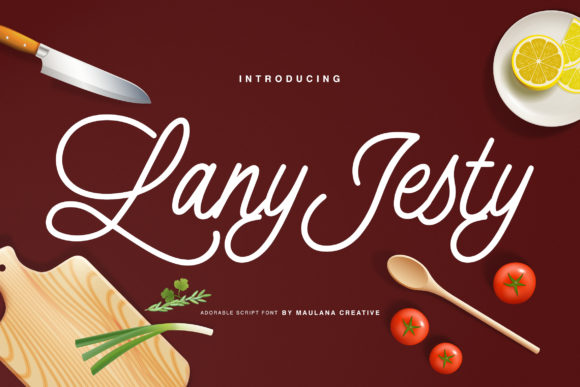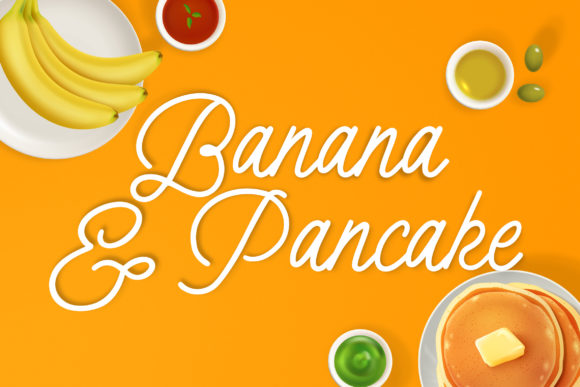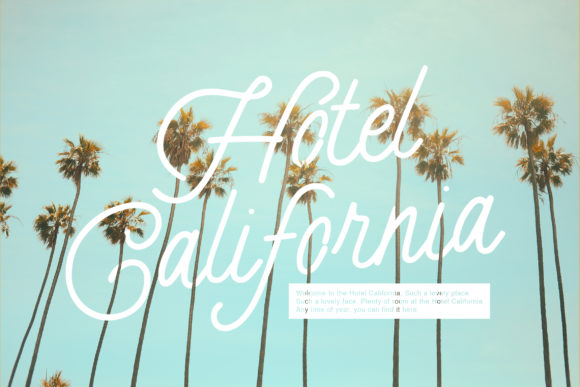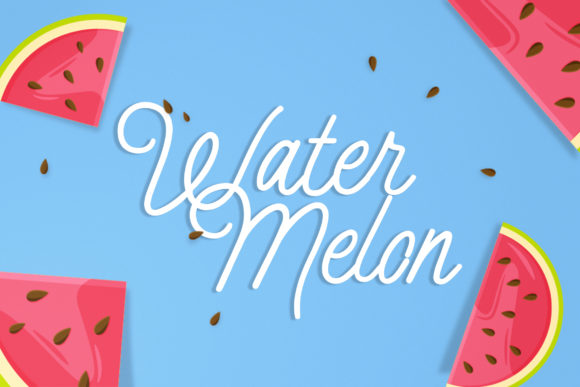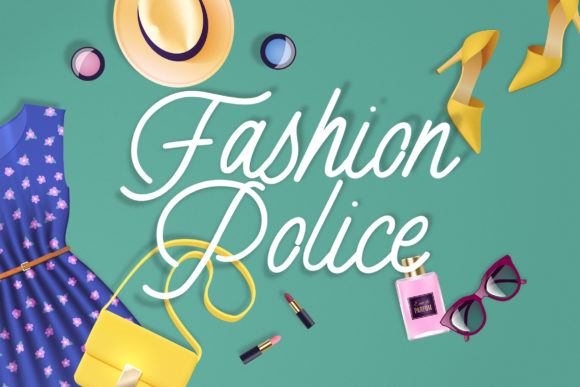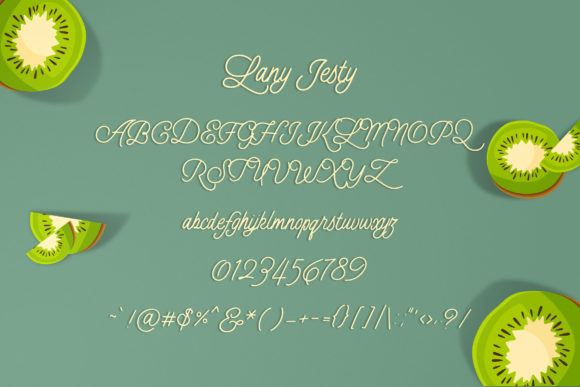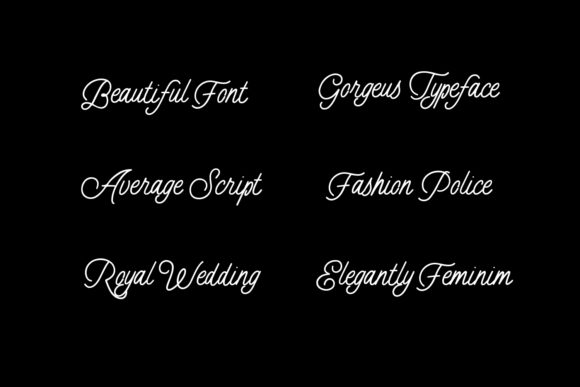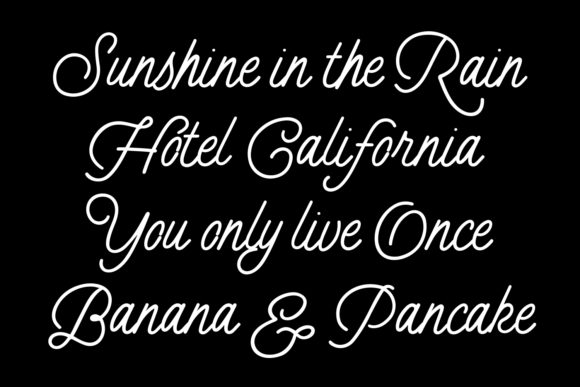
Lany Jesty Script Font
About Lany Jesty Script Font
Lany Jesty is the perfect font to give your designs an authentic handcrafted feel. Get inspired by its playful vibe!